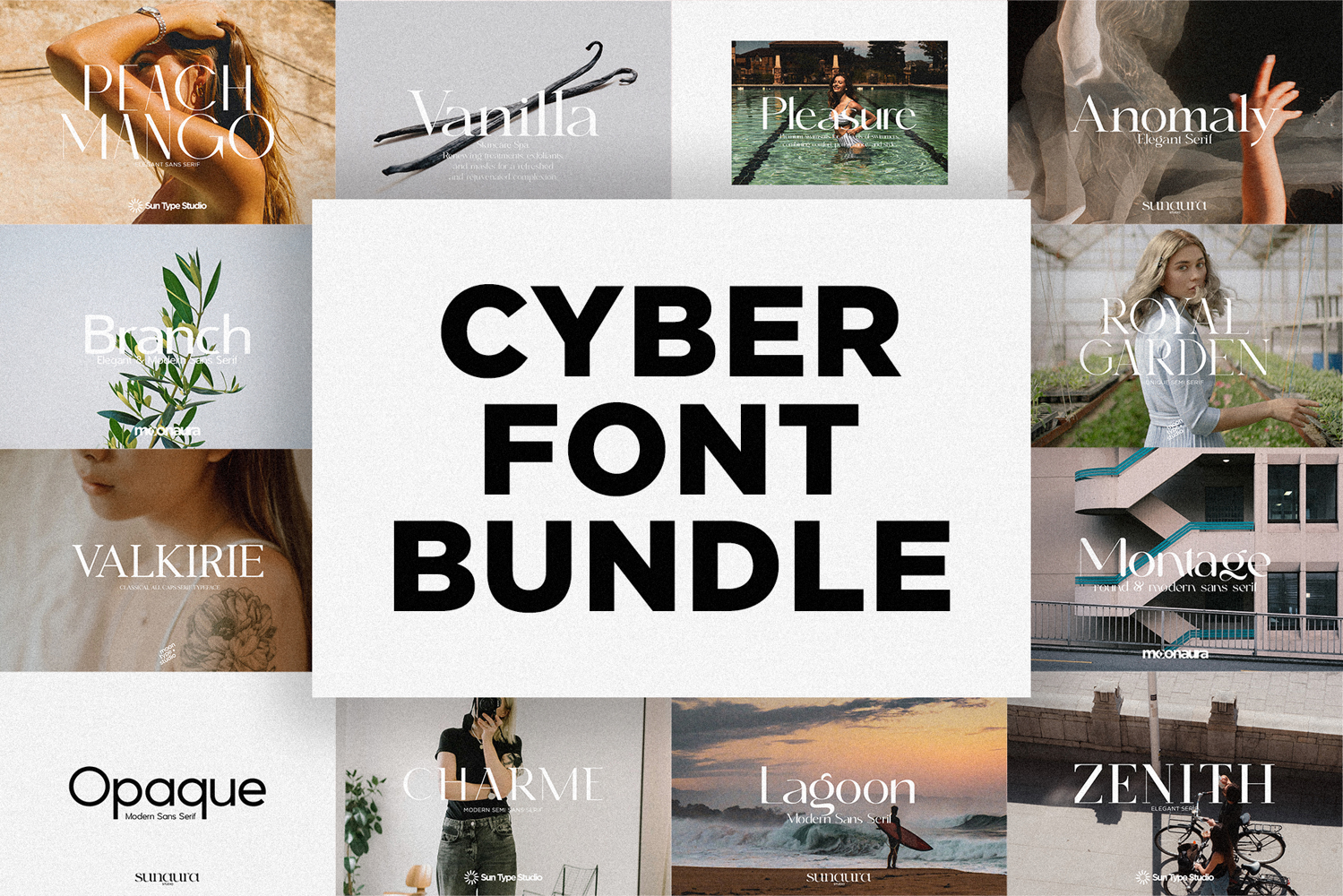
CYBER FONT BUNDLE
The Cyber Font Bundle combines the best of sleek, modern design with a touch of sophistication. This versatile collection features a mix of sharp sans-serif fonts for a clean look, and elegant serif fonts that bring a refined, high-end feel to your projects. Whether you're working on a digital brand, magazines, or fashion focused design, this bundle offers a perfect balance of boldness and elegance.
Bundle includes:
• Branch - Elegant & Modern Sans Serif https://crmrkt.com/7vOEpw
• Charme - Modern Semi Serif https://crmrkt.com/GDKEep
• Royal Garden - Unique Semi Serif https://crmrkt.com/w3MdX4
• Valkirie - Classical Serif https://crmrkt.com/JXqEXV
• Lagoon - Modern Sans Serif https://crmrkt.com/vXagB0
• Peach Mango - Elegant Sans Serif https://crmrkt.com/zX3awm
• Zenith - Elegant Serif https://crmrkt.com/B3x4ya
• Opaque - Modern Sans Serif https://crmrkt.com/ODOEQy
• Anomaly - Elegant Serif https://crmrkt.com/qleQ03
• Montage - Round & Modern Sans Serif https://crmrkt.com/z9qdRR